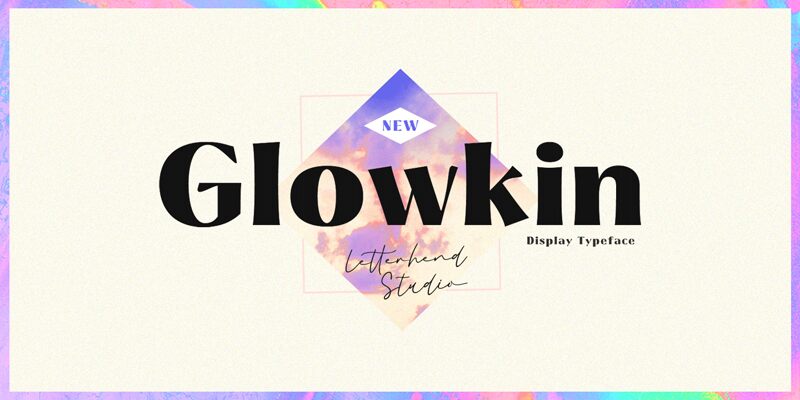
Looking for a font that exudes confidence and sophistication? Look no further than Glowkin, the latest creation from Letterhend Studio. With its extra-bold serif style, this font commands attention and makes a statement. Perfect for projects that require a touch of elegance, such as wedding invitations or high-end fashion branding. But don't let its refined appearance fool you - Glowkin's boldness also makes it ideal for eye-catching headlines in advertising campaigns or magazine layouts. Whether you're looking to add some flair to your latest project or simply want to elevate your design game, Glowkin is the font for you.